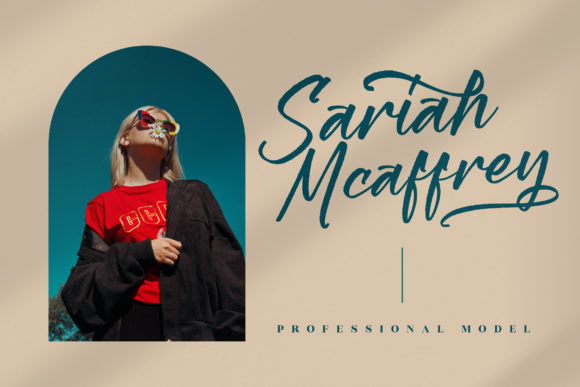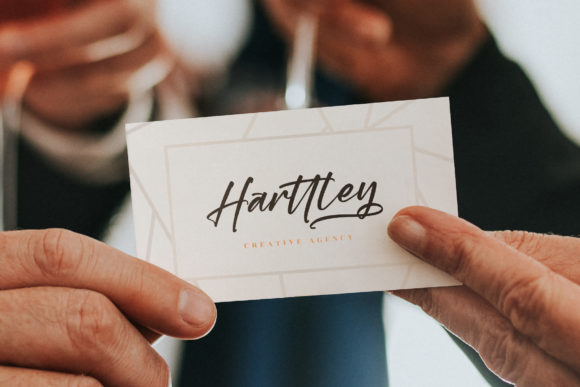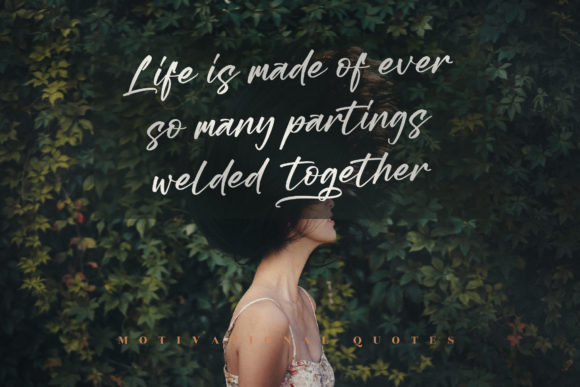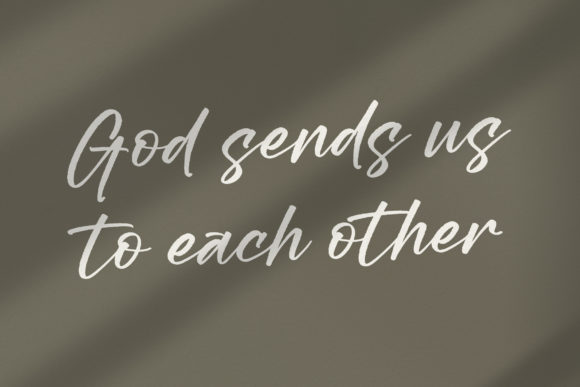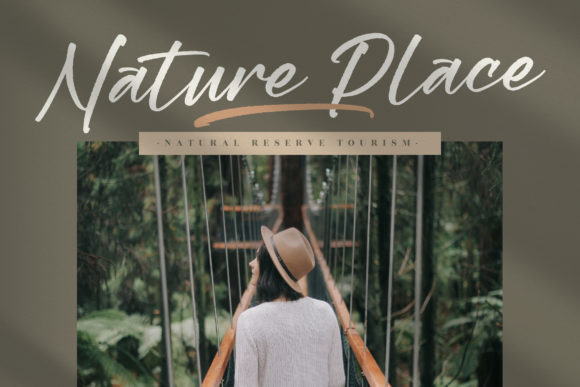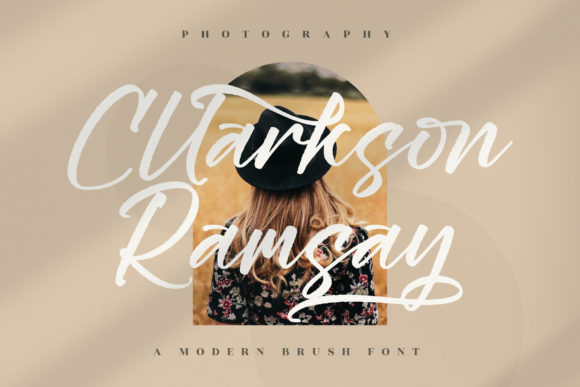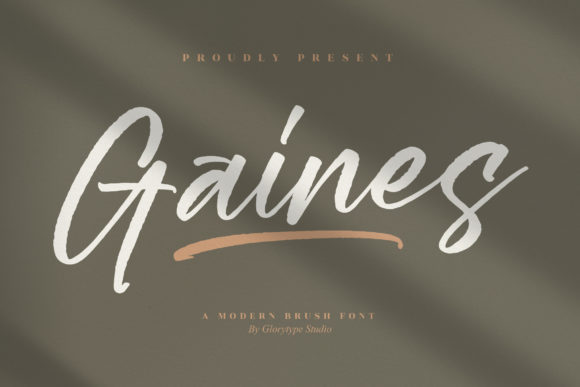
Gaines Font: The Modern Handwritten Brush Font to Elevate Your Designs
In the world of typography, fonts play a crucial role in conveying the tone and personality of a design. For designers and crafters looking to add a touch of elegance and sophistication to their projects, Gaines Font is an excellent choice. This modern handwritten brush font is designed to charm your projects and make them stand out from the crowd.
What is Gaines Font?
Gaines Font is a beautifully crafted handwritten brush font that exudes a sense of modernity and style. Its unique and elegant lettering makes it perfect for a wide range of design applications, from event posters and food packaging to stationery designs and more. With its smooth and flowing strokes, Gaines Font adds a touch of sophistication to any project.
Key Features of Gaines Font
• Modern Handwritten Style: Gaines Font boasts a modern handwritten style that is both elegant and stylish.
• Brush Font: The font features beautiful brush strokes that give it a unique and organic feel.
• Versatile: Gaines Font can be used for a wide range of design applications, including event posters, food packaging, stationery designs, and more.
• Easy to Read: Despite its elegant style, Gaines Font is easy to read, making it perfect for body text and headlines.
Use Cases for Gaines Font
Gaines Font is an incredibly versatile font that can be used for a wide range of design projects. Here are some use cases to get you started:
• Event Posters: Use Gaines Font to create stunning event posters that grab attention and set the tone for your event.
• Food Packaging: Add a touch of elegance to your food packaging with Gaines Font, perfect for restaurants, cafes, and food bloggers.
• Stationery Designs: Create beautiful stationery designs, including business cards, letterheads, and more, with Gaines Font.
• Social Media Graphics: Use Gaines Font to create engaging social media graphics that stand out from the crowd.
Tips for Using Gaines Font
To get the most out of Gaines Font, here are some tips to keep in mind:
• Use it as a Headline Font: Gaines Font is perfect for headlines and titles, so use it to grab attention and add visual interest to your designs.
• Pair it with a Sans-Serif Font: Pair Gaines Font with a sans-serif font, such as Arial or Helvetica, to create a beautiful contrast and add visual interest to your designs.
• Experiment with Colors: Gaines Font looks great in a range of colors, so don’t be afraid to experiment and find the perfect color scheme for your design.
In conclusion, Gaines Font is a modern handwritten brush font that is sure to charm your projects and elevate your designs. With its elegant style, versatile use cases, and easy-to-read design, Gaines Font is perfect for designers and crafters looking to add a touch of sophistication to their work. So why not give it a try and see the difference it can make?